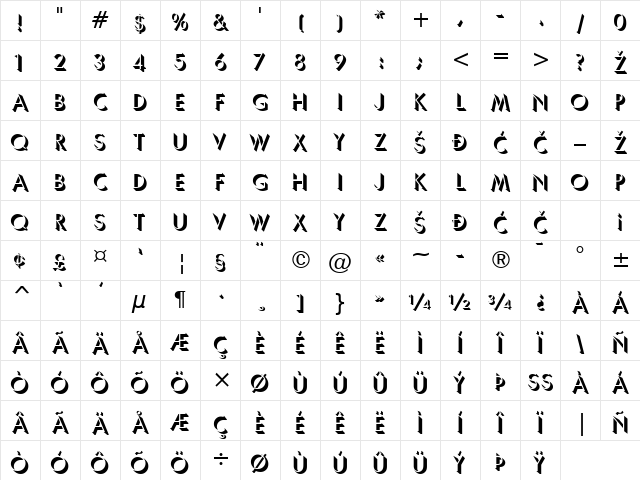
Umbrella Regular
Complete Umbrella Regular glyph index. Displaying only characters natively supported by Umbrella Regular font.
Design Context for Umbrella
Umbrella is a composed and adaptable typeface that performs quietly and consistently across a wide range of design contexts.
Pro Tip: Use Umbrella in both headline and body roles to test its range before committing to a single application.